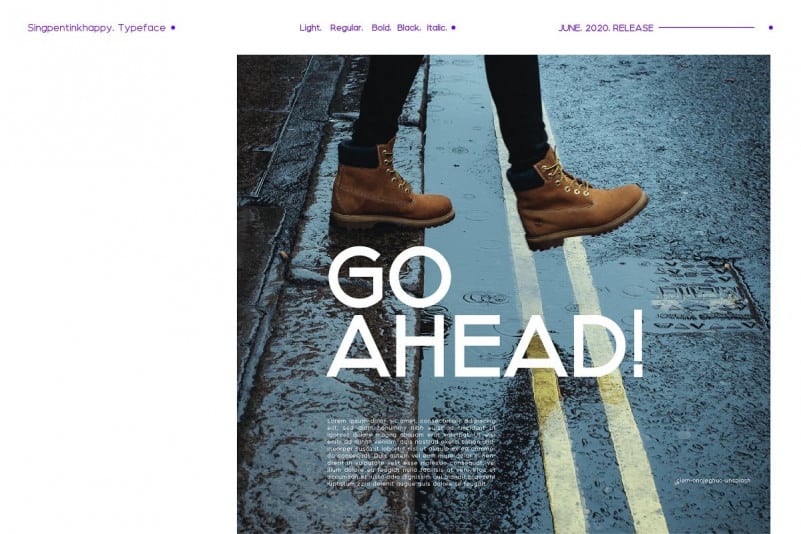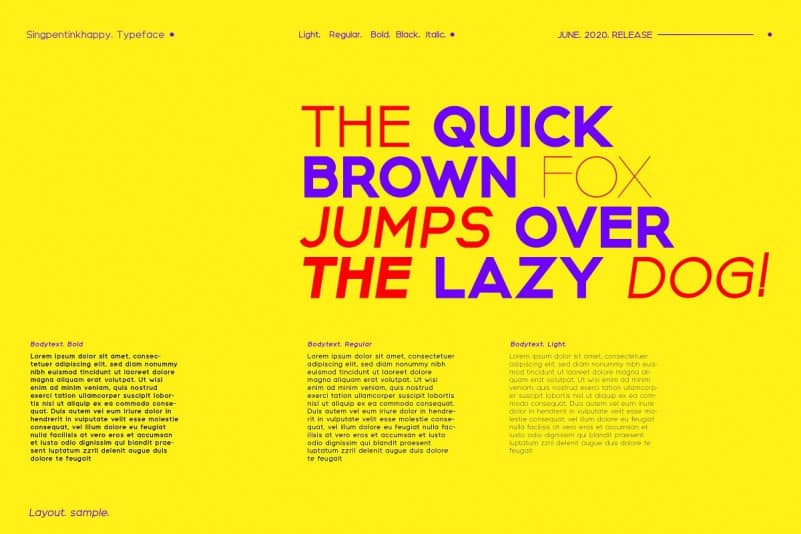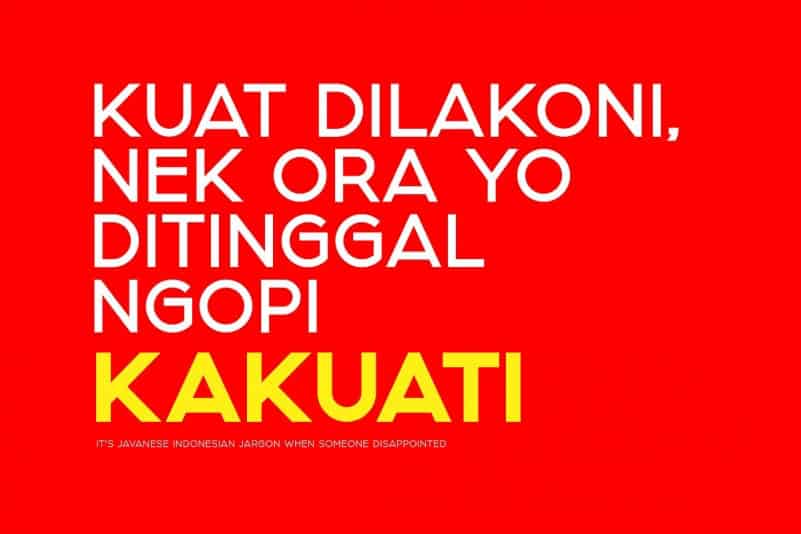
Kakuati Sans Serif Font
Kakuati Sans Serif Font is a stylish and charismatic sans serif type family that brings modern and vintage feels that allow you to make a visual journey from thinnest body slab to a very thick expanded display sans serif. Kakuati is good for branding, commercial, logos, editorial, fashion, music, and travel. So for design and typography experiment, it’s very interesting. Thanks for checking out Kakuati.